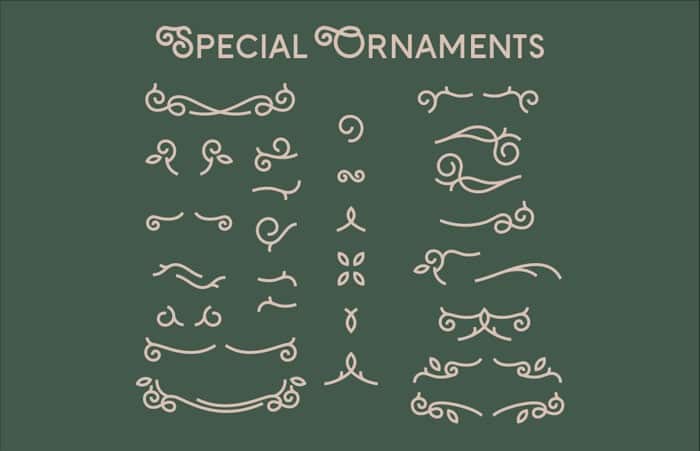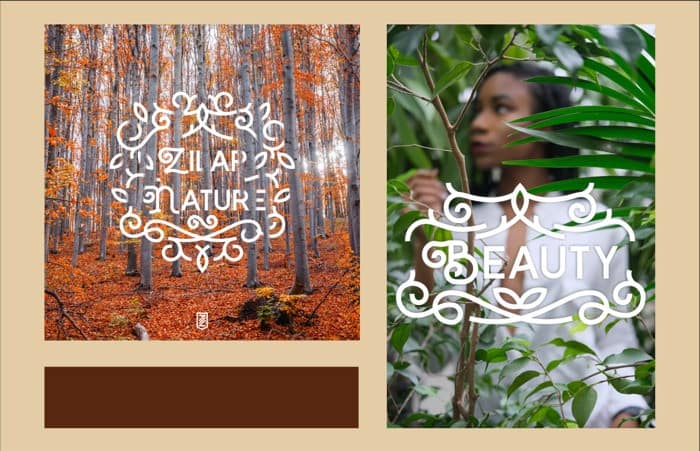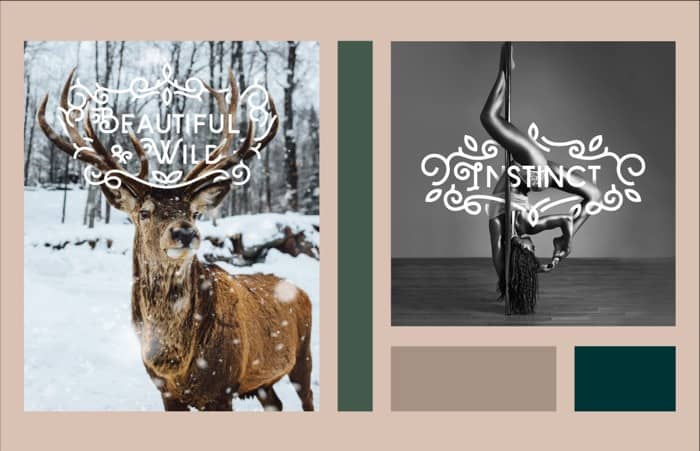
Zilap Nature Sans Serif Font
Zilap Nature Sans Serif Font is vintage monoline sans serif font. It has vintage, elegant, old school, classy, and cool. It’s designed and shared by ZILAP ZP. This fountain expresses the beauty of nature, the harmony and simplicity of its shapes make its design modern and elegant. It contains a package of ornaments that accompany the style of its design to complement its structures. Perfect for use in headlines, logos, brands, posters, products, among others.